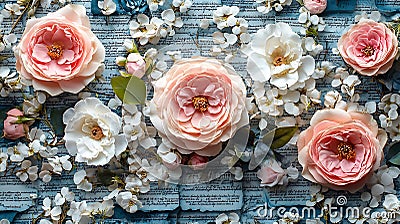
Collection Cursive Script Fonts Displayed Royalty-Free Stock Photo
A collection of cursive script fonts displayed over a floral background, perfect for wedding invitations and elegant branding